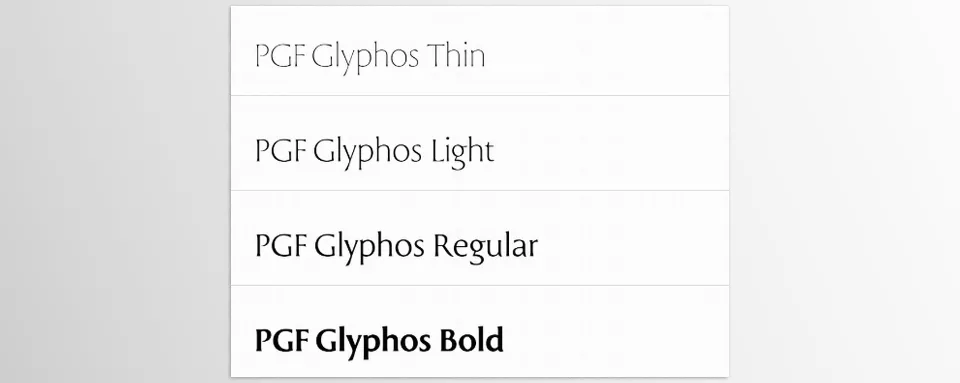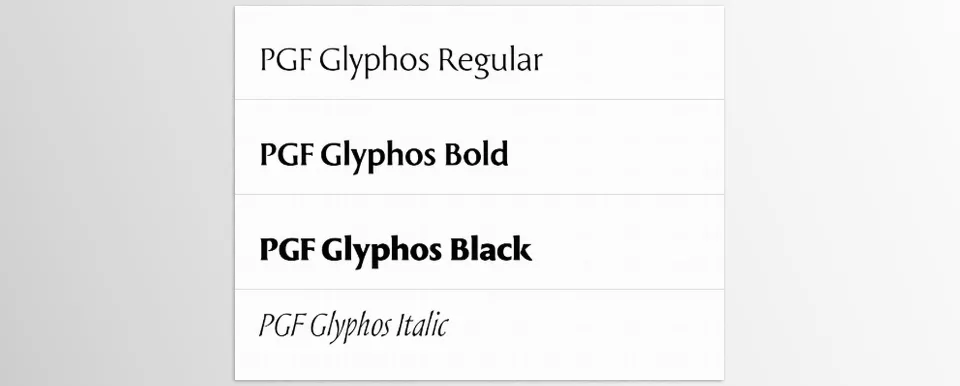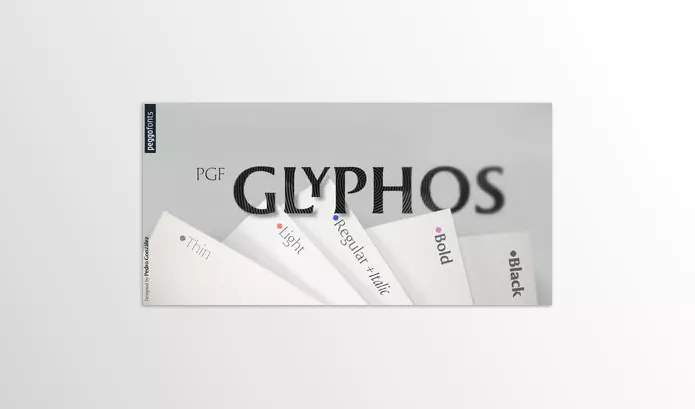
PGF Glyphos Font Family is a one-of-a-kind typeface since it is a flared serif Roman font that combines daring design with strongly architectural layout.
- Casing and Asterisking: Incorporating five standard weights and an Italic variant on top of each.
- Proportions of the Classical: Inspired and built on Trajan’s Column, using historic geometric principles like the golden ratio.
- Lowercase Refinement: Lowercase letters are enhanced while still keeping a stylistically uniform appearance.
- OpenType Features: English and discretionary ligatures, basic alternate glyphs for a predefined context, some context alternates, and so on.
- Display Composition of Number: Numerals can be presented in a variety of ways including classic lining, oldstyle, or even fractions.
- Flexibility in Design Use: Excellent for use in book covers and design of products and posters, as well as the titles for the films.
Image 1: The perfect blend of modernity and elegance for any project.
Image 2: A typeface that balances assertiveness with clean, sharp design.